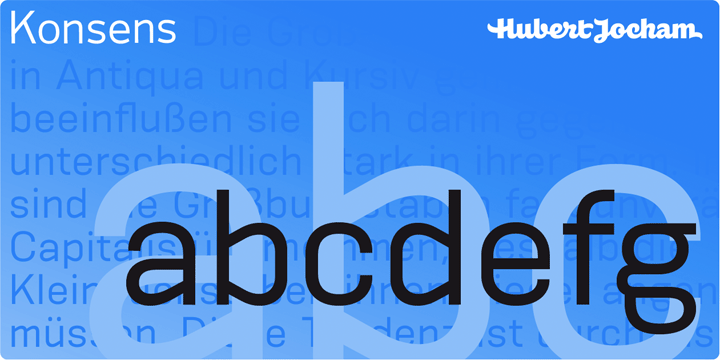
Discover the perfect balance of professionalism and personality with Konsens Font Free Download – a contemporary sans-serif typeface that combines clean geometry with subtle humanist warmth. This versatile font family delivers exceptional clarity across all media, making it ideal for corporate, editorial, and digital design applications where both professionalism and approachability matter.
Why Designers Choose Konsens Font
Konsens Font Free Download offers:
Perfectly balanced letter proportions
Excellent readability in all sizes
Multiple weights for typographic hierarchy
Subtle rounded terminals for friendly appeal
Konsens Font Free Download Technical Features:
Extended language support (Western & Central European)
True italics with elegant slant
OpenType features including stylistic alternates
Optimized for both print and digital displays
Professional Applications:
Corporate branding and identity systems
Annual reports and business communications
Web and mobile app interfaces
Modern editorial design
Sophisticated packaging solutions
Design Tip: Pair with minimalist layouts and a restrained color palette for maximum professional impact!